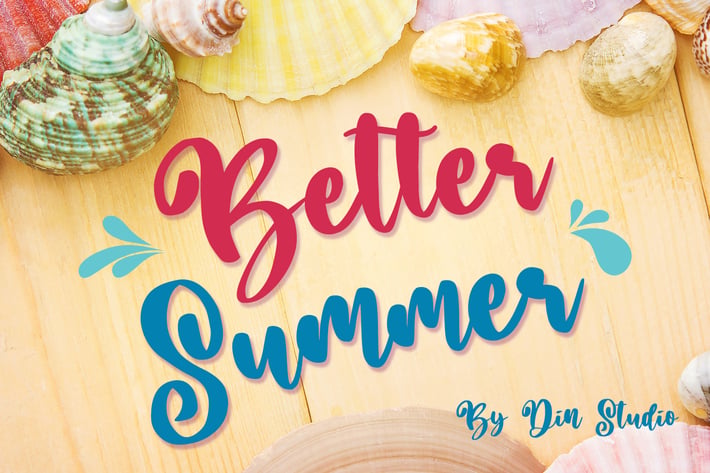
Better Summer Script Font
Introducing a Better Summer Script.
Made from a chic brush, it will make your design more beautiful.
- Character Set A-z
- Accents (Multilingual characters)
- Beautiful ligatures